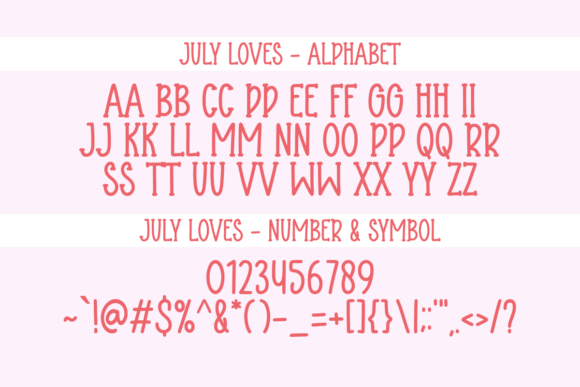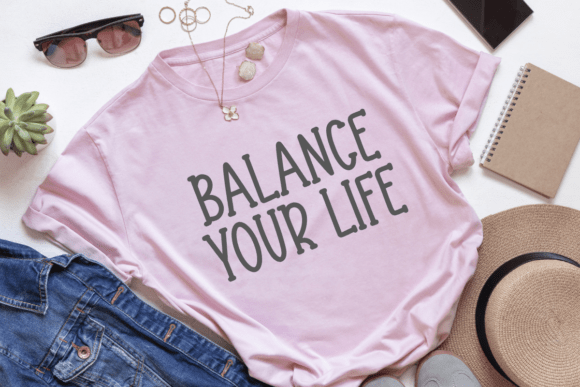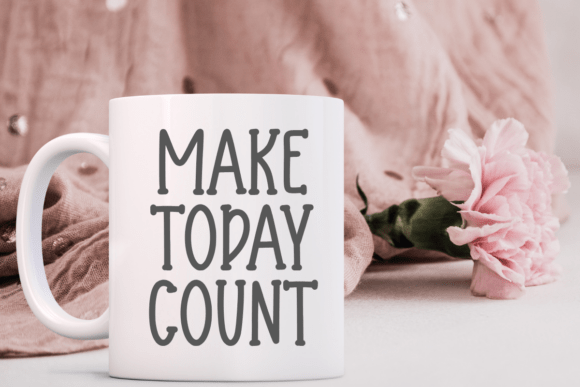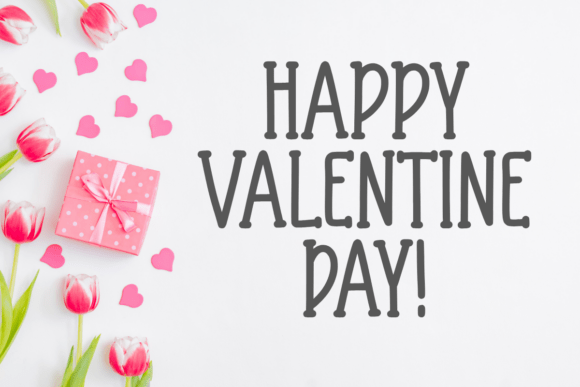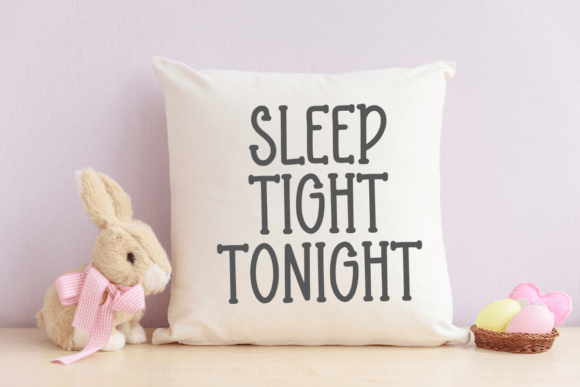
Introduction to July Loves Font
Immerse yourself in the delightful charm of July Loves, a dynamic display font that dances off the page.
Its playful nature makes July Loves a standout choice for a myriad of creative endeavors – from Cricut projects and logo designs, to SVG files for enhanced visual complexity Discover the joy of using July Loves on attention-grabbing shirts, expressive stickers, and inspiring quotes.
Key Features of July Loves Font
Why Choose July Loves Font?
July Loves Font offers exceptional quality and versatility, making it a valuable addition to your design toolkit. Whether you’re creating for personal projects or commercial use, July Loves Font delivers professional results.